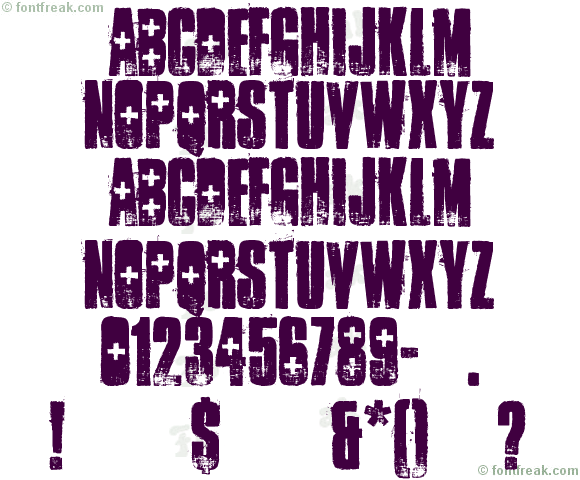
ambulance shotgun
About ambulance shotgun
The "ambulance shotgun" font by Gyom Seguin is a striking display typeface that captures attention with its bold, rugged aesthetic. Designed in 2006, this freeware font exhibits a strong visual presence, characterized by its heavy stroke weight and distressed texture. The uneven edges and varying thicknesses create an organic feel, making it suitable for projects that call for a gritty, urban vibe. The spacing is adequately balanced, allowing for legibility even at larger sizes, which enhances its impact in visual design.
The ambulance shotgun font is ideal for a variety of creative applications. It can be effectively used in movie posters, particularly for action or horror genres, where the boldness of the font can convey intensity and excitement. Additionally, it works wonderfully for band logos or album covers, giving a raw and edgy look that resonates with music enthusiasts. Restaurant menus that focus on a modern or industrial theme can benefit from this typeface, as it adds character and a unique flair. Furthermore, it is an excellent choice for promotional materials, such as flyers or banners, aimed at a youthful audience looking for something distinctive.
Targeting graphic designers, small business owners, and content creators alike, the ambulance shotgun font provides a versatile tool for those looking to make a statement. Its unique style allows creators to express bold ideas in a visually compelling manner.
What sets the ambulance shotgun font apart is its ability to combine legibility with a distinctive visual style. This font stands out in a sea of generic typefaces, offering a unique voice that can elevate any project. For those seeking to make a memorable impression, the ambulance shotgun font free download is a fantastic addition to any designer’s toolkit.